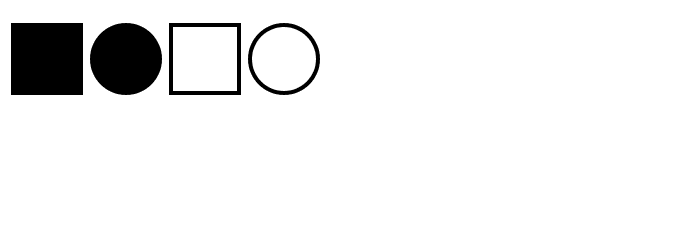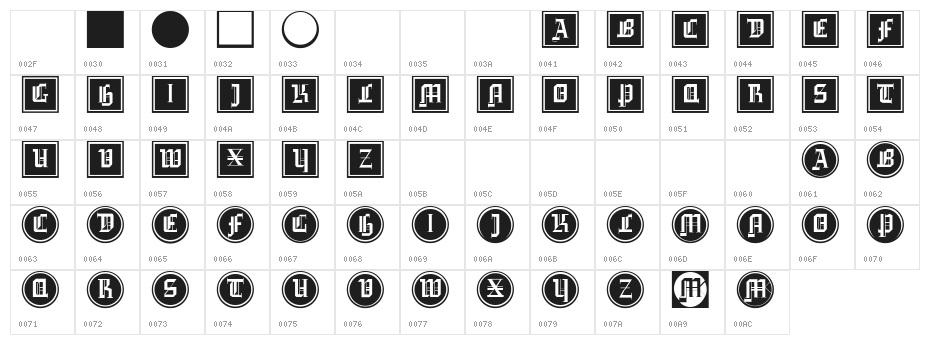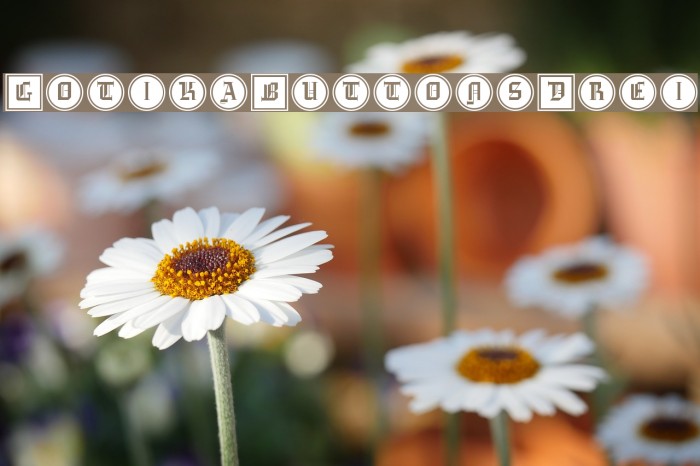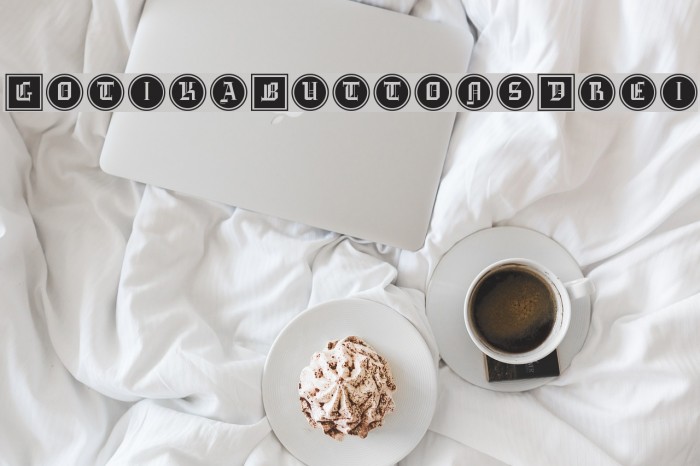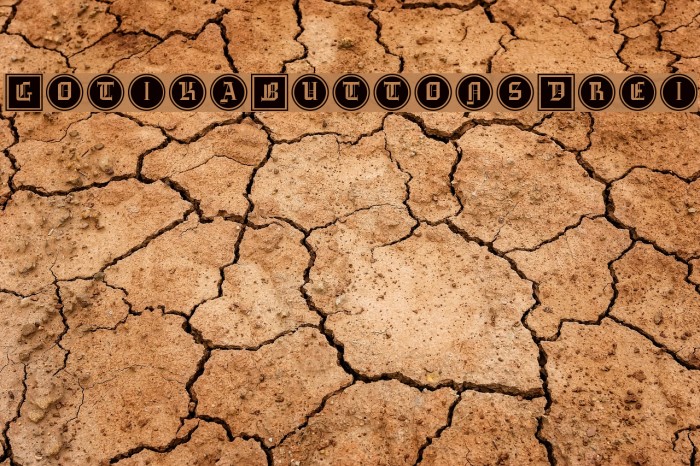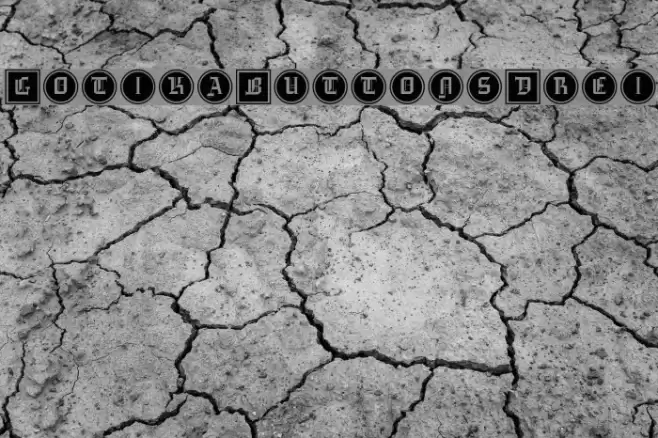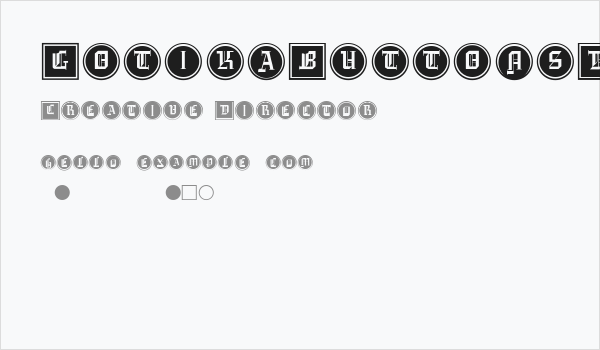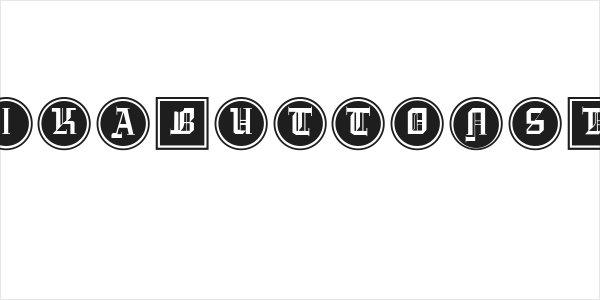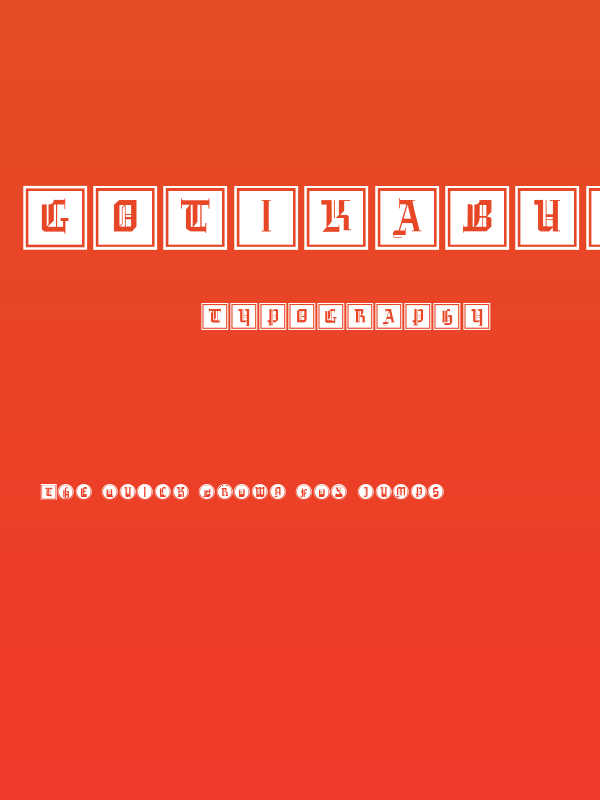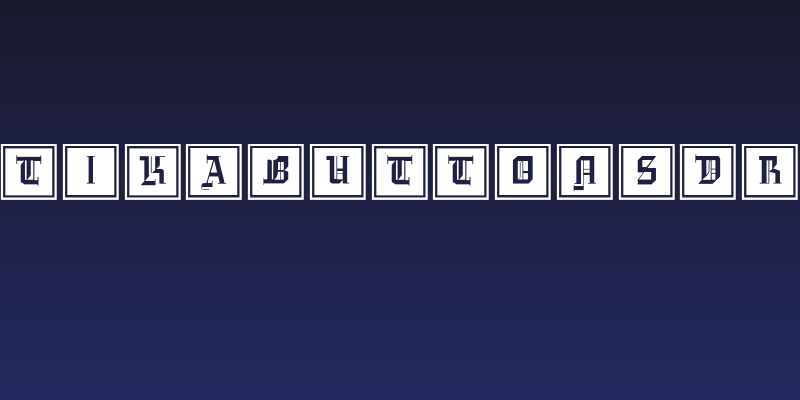
GotikaButtonsDrei Font
GotikaButtonsDrei Description
This font features a bold and striking design with each character enclosed within a square or circular border, giving it a button-like appearance. The letters are styled in a Gothic or Blackletter fashion, characterized by sharp, angular lines and a medieval aesthetic. The uppercase letters are prominent and distinct, making them ideal for attention-grabbing designs. The font's unique presentation with enclosed characters adds a decorative element, making it suitable for projects that require a vintage or historical feel. The geometric shapes surrounding the letters add a modern twist to the traditional Gothic style.
| Proposed Projects | Ideal for logo design, posters, book covers, and any project requiring a vintage or medieval theme. |